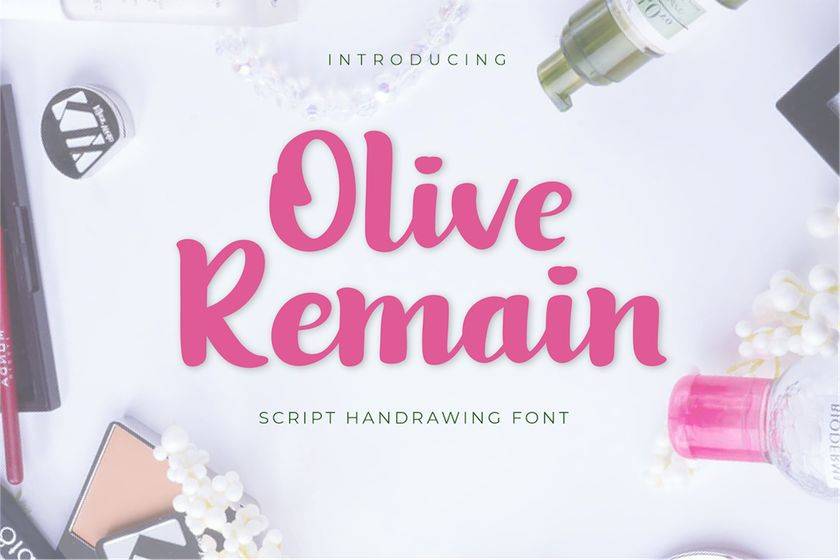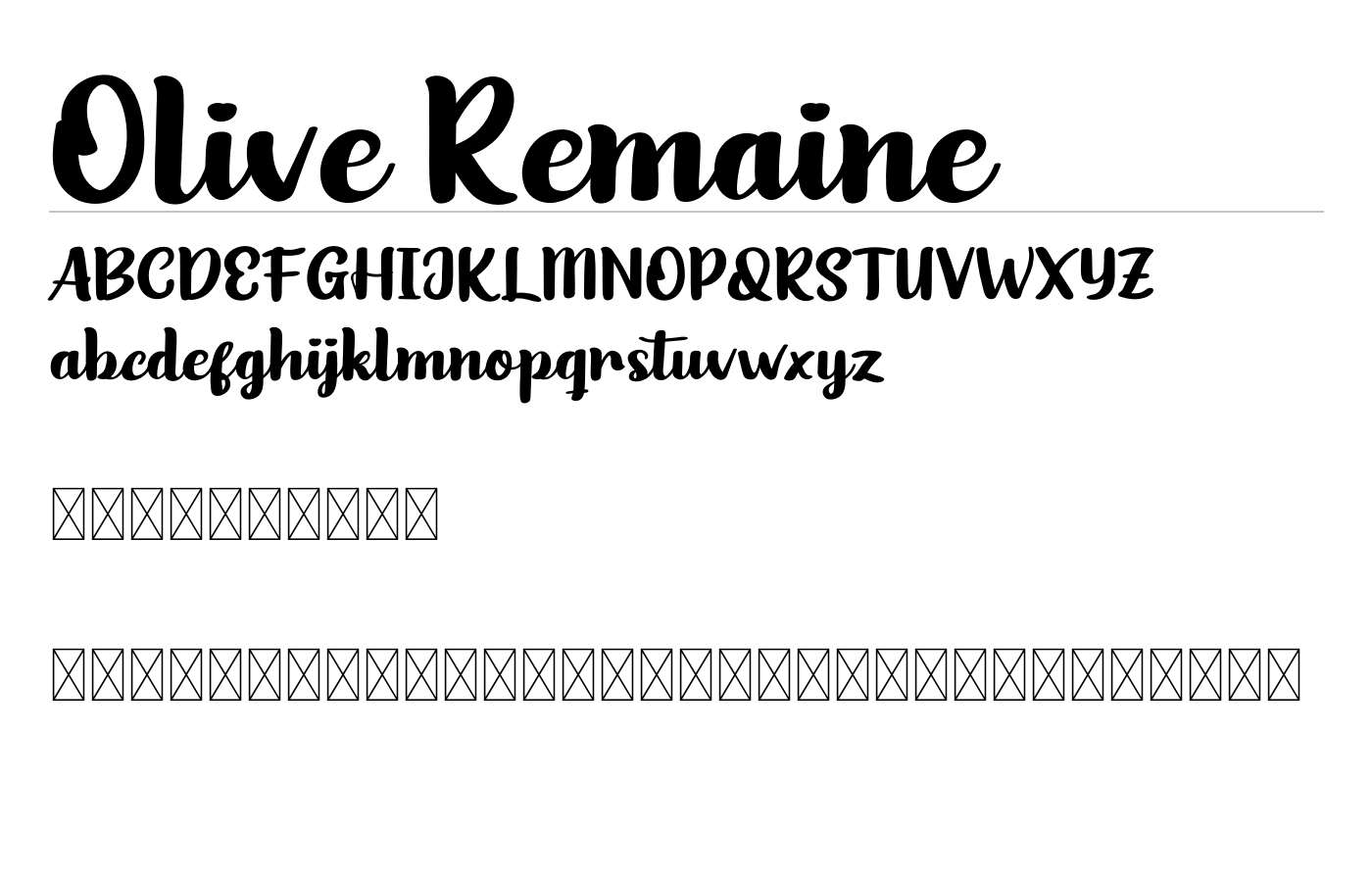
Olive Remain is a bold, playful script font with a smooth, flowing style that brings a warm, friendly charm to any design. Its thick strokes and casual letterforms make it perfect for branding, packaging, and headlines where a touch of personality and approachability is needed. This font works especially well for creative projects aiming to convey a handmade or artistic feel.
Olive Remain Font
About Olive Remain Font